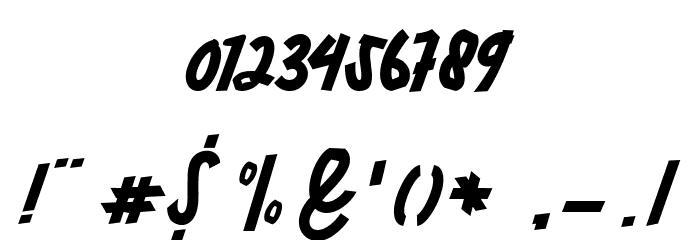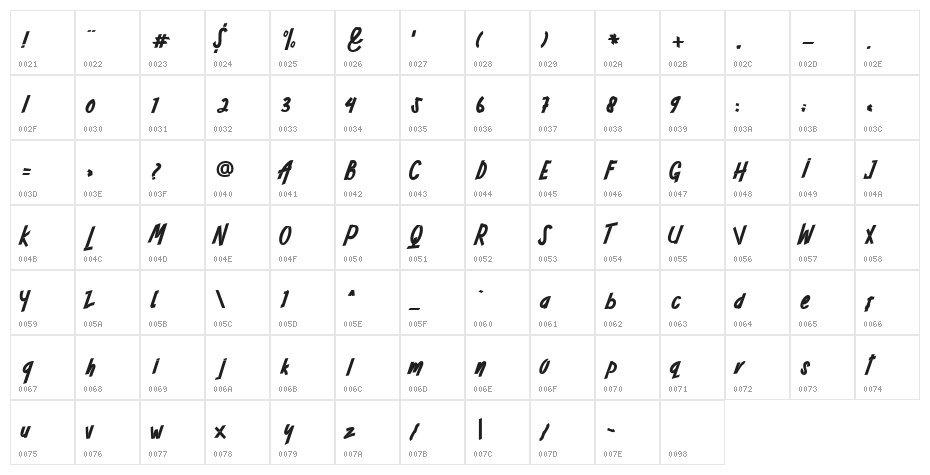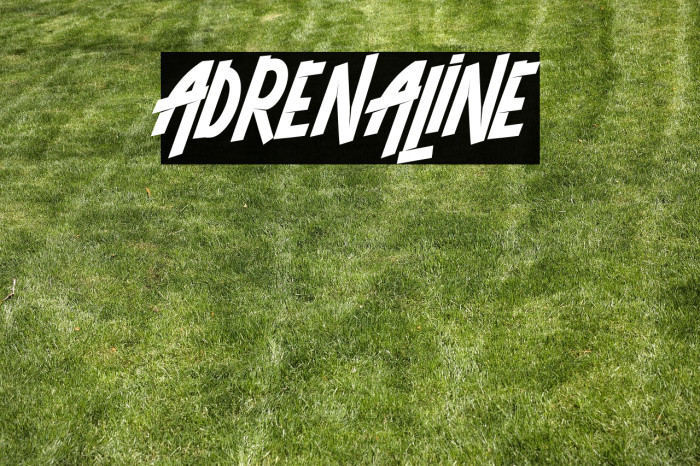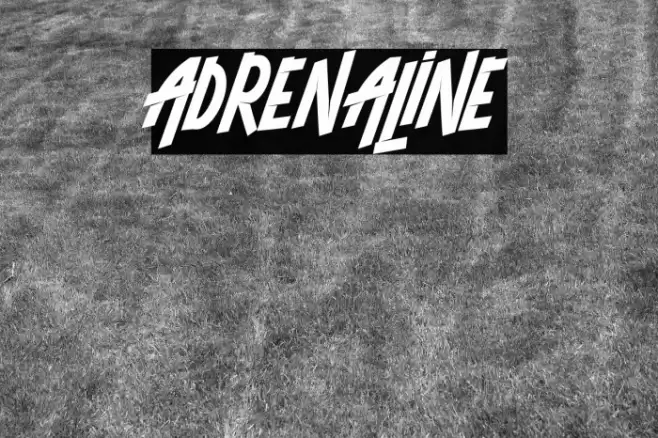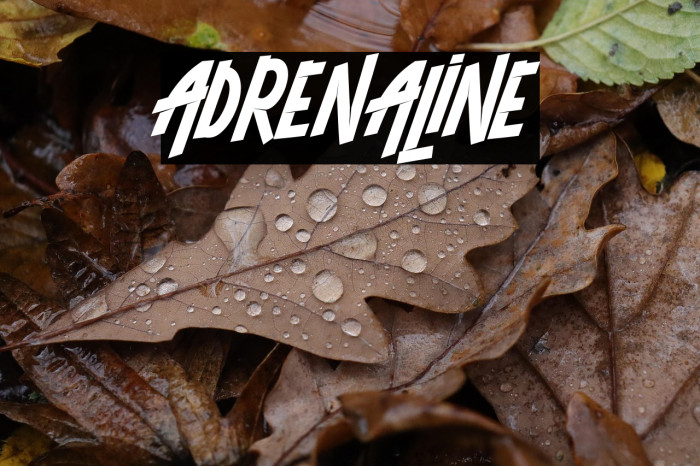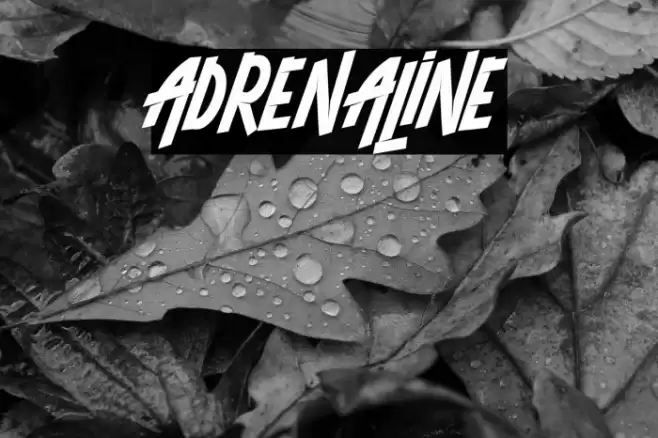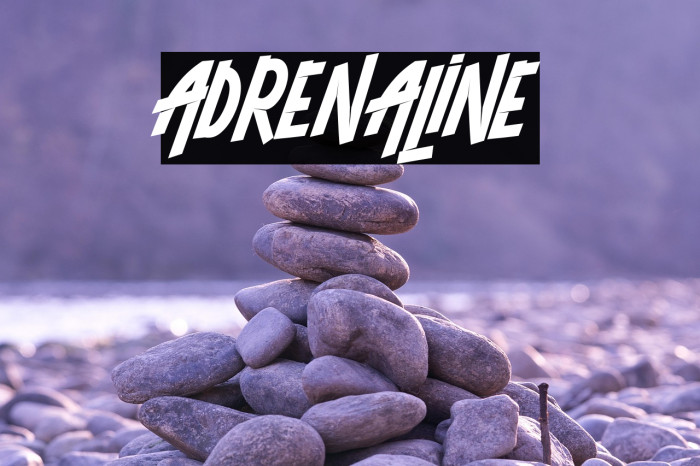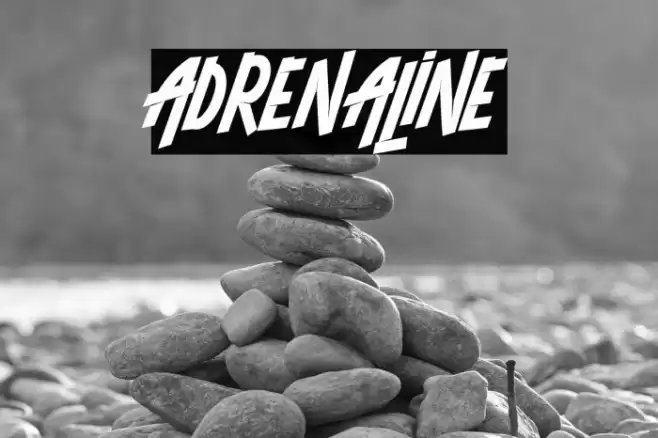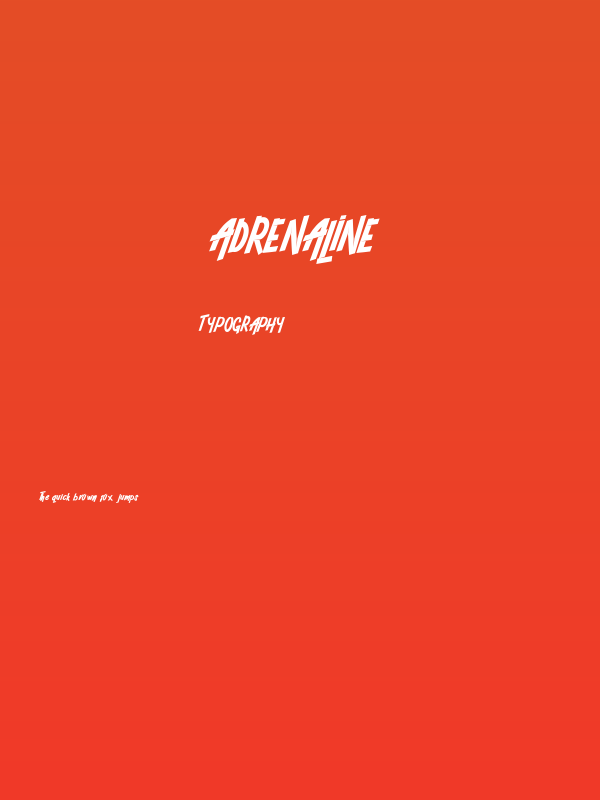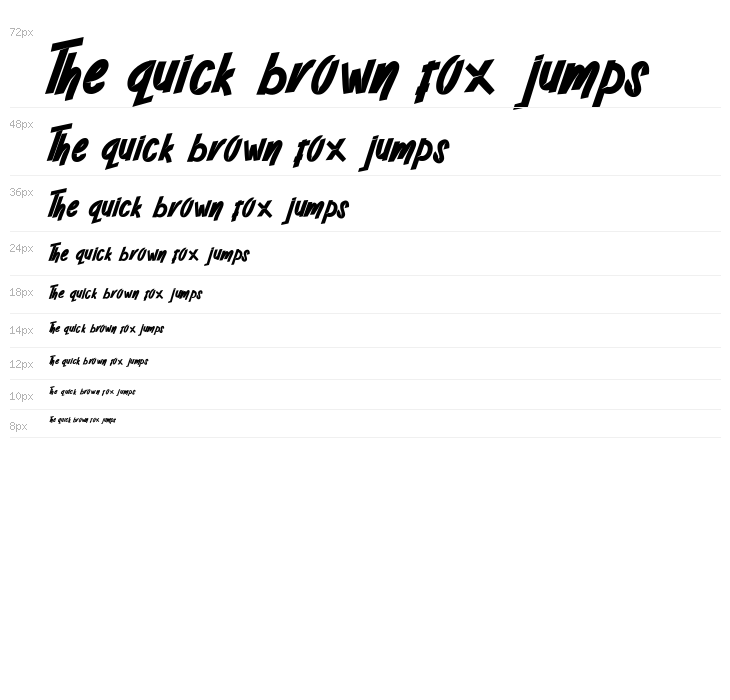
ADRENALINE Font
ADRENALINE Description
This dynamic and energetic font features bold, angular letters with a forward-leaning slant, giving it a sense of motion and urgency. The uppercase letters are particularly striking, with sharp edges and varying stroke thicknesses that add to the overall impact. The lowercase letters maintain this boldness while offering a slightly more rounded appearance. Numbers and special characters are designed with the same vigor, ensuring consistency across all text. This font's unique style makes it ideal for projects that require a strong visual presence.
| Proposed Projects | Ideal for sports branding, action movie posters, and dynamic advertising campaigns. |